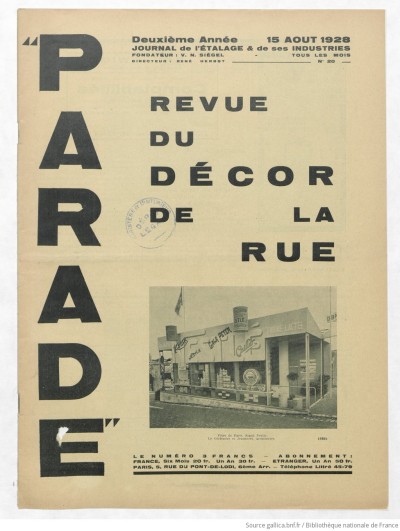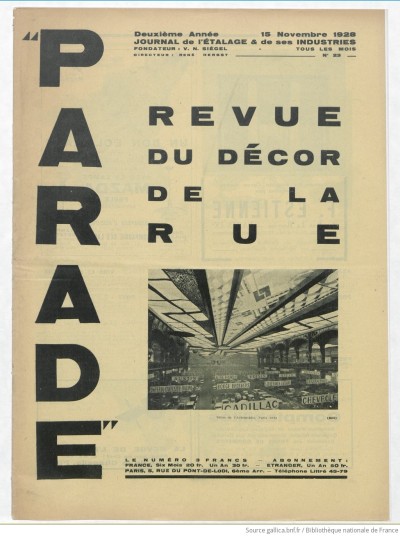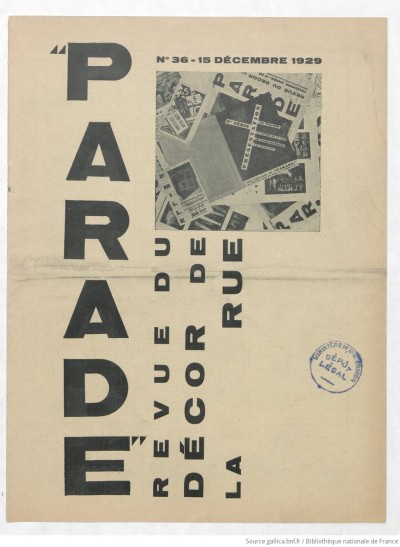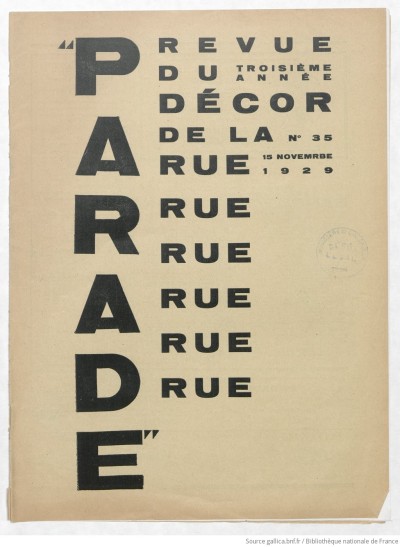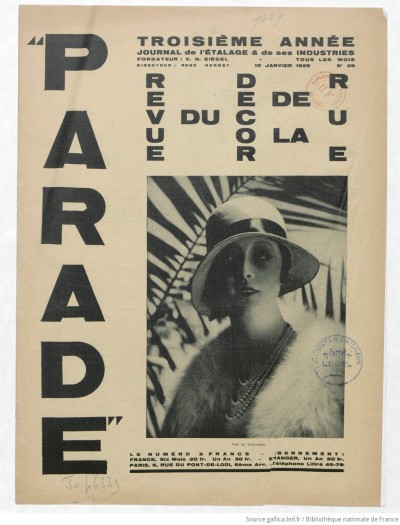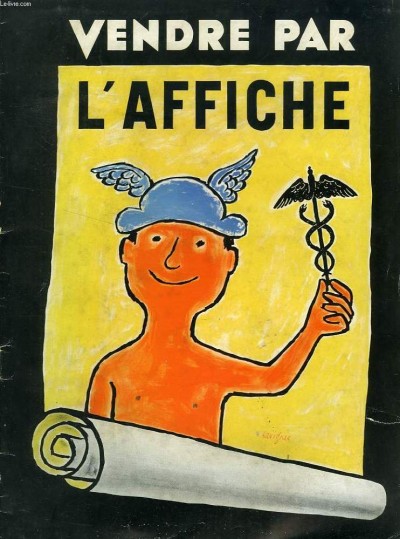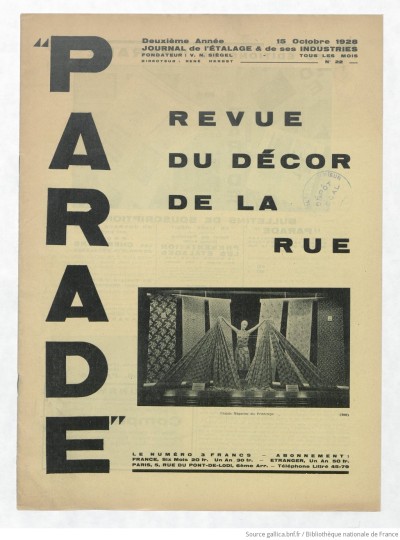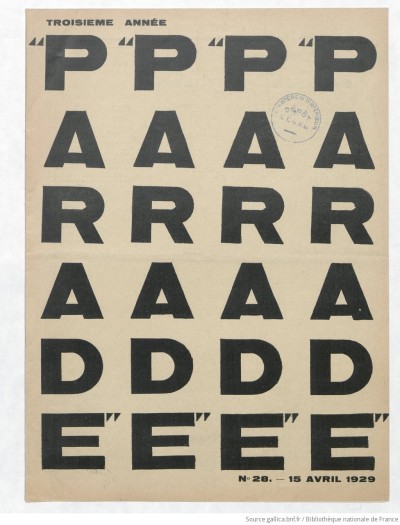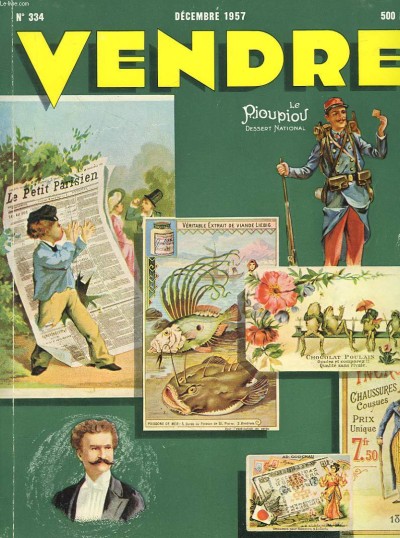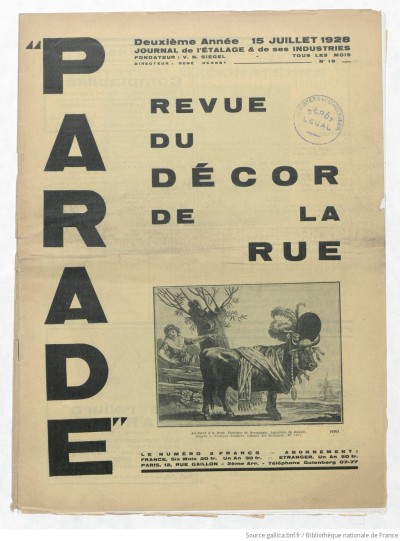
In the bibliography of Die neue Typographie, magazines occupy a prominent place: they are one of the vehicles for transmission across borders and language barriers. Beginning in the 1920s, the professional press accompanied the industrial development of graphic design. It echoed new reproduction and printing processes as well as the forms and ideas that accompanied this evolution.
Specialized magazines offer a threefold interest: through their own material and graphic design, the editorial content of their articles and illustrations, and the advertisements they include, which are themselves doubly instructive.
The selection of the main case studies for this section was made to cover the fields of book trades, advertising, signage, and exhibition design; to provide a representative sample of different professional and intellectual positions; and to compare, from a typographic perspective, how Germany, German-speaking Switzerland, French-speaking Switzerland, and France viewed one another and took positions—between awareness of an avant-garde based on international values, critical assessment of technical progress, defense of national specificities, and aesthetic proselytism.
● Arts & métiers graphiques
● Parade. Journal de l’étalage et de ses industries / Revue du décor de la rue
● Gebrauchsgrafik 1924–1945, Allemagne
● Revue Suisse de l’Imprimerie
● Typographische Monatsblätter
● Vendre
● Bulletin mensuel de L’Œuvre
● Caractère
● Caractère Noël
● Publimondial
● Graphis
● Neue Grafik / Graphisme actuel